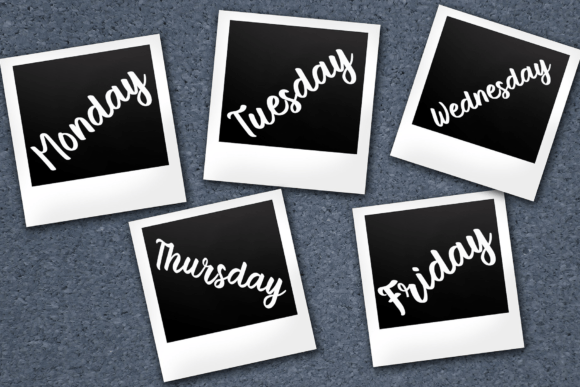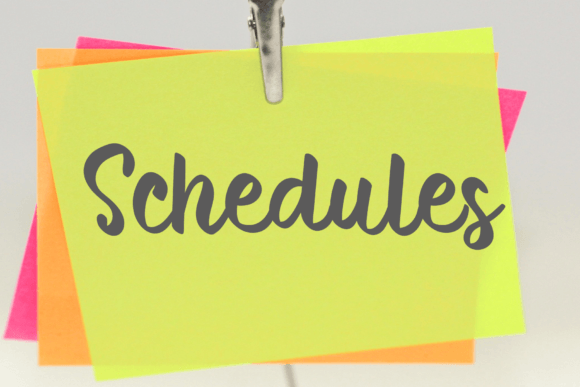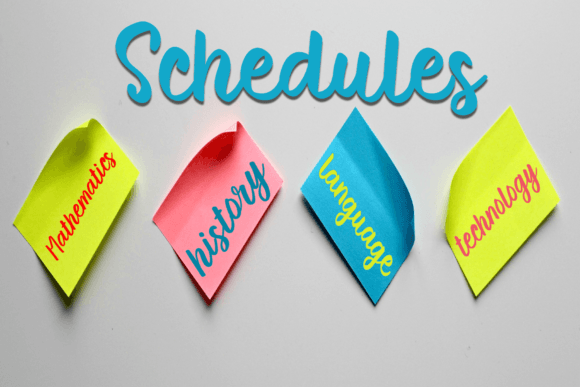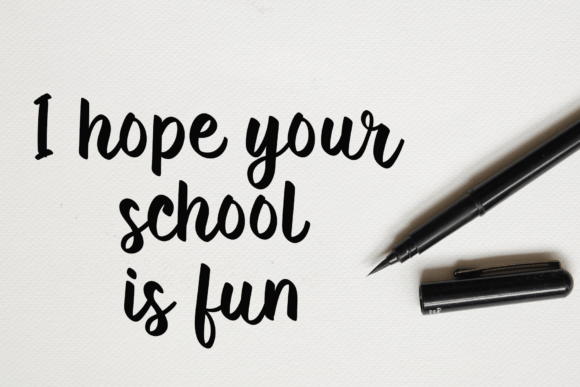
Getting Creative with the Back to School Font
Do you remember the excitement of back to school season? The thrill of new pens, fresh notebooks, and the promise of a new year full of possibilities? For designers, that same sense of excitement and possibility is what Back to School Font is all about.
| 👤 Author | Creatype Designer |
This playfully handmade font is the perfect way to add a touch of whimsy and personality to any design project. With its masterfully designed, handwritten style, the Back to School Font is sure to bring a smile to your face and a spark to your creativity. Whether you’re working on a project for kids or just want to add a little fun to your adult design work, this font is a must-have in your toolkit. Let’s dive in and explore the possibilities of the Back to School Font!
Key Features of “Back to School Font”
- Unique Characteristics: A playful, cursive script with a nostalgic feel, perfect for educational and creative projects
Designer Review: Back to School Font
I recently had the chance to work with the “Back to School Font” and here’s my honest review.
What works well: ✨ The font has a great, energetic feel that’s perfect for summer or back-to-school projects. The playful, handwritten style is easy to read and adds a lot of character to any design. The font also comes with a range of swashes and flourishes that can be used to add extra flair to headings and titles.
What’s missing: ⚠️ One of the main limitations of the font is its limited range of weights. It’s only available in one weight, which can make it difficult to use for complex, multi-weight layouts. Additionally, the font doesn’t include many punctuation marks or special characters, which can be a pain to work with.
Overall, I think the “Back to School Font” is a fun and creative choice for designers who want to add a playful touch to their projects. While it may not be the most versatile font, it’s perfect for summer or back-to-school-themed designs.
- Great, energetic feel
- Playful, handwritten style
- Easy to read
- Includes swashes and flourishes
- Limited range of weights
- Doesn’t include many punctuation marks or special characters
Practical Application Guide: “Back to School Font”
Use the “Back to School Font” to create eye-catching and engaging designs for back-to-school promotions, educational materials, and more. Experiment with different font sizes and colors to create visual interest.
The “Back to School Font” is ideal for use in back-to-school promotions, educational materials, and summer camp designs. It can also be used in social media graphics, posters, and flyers.